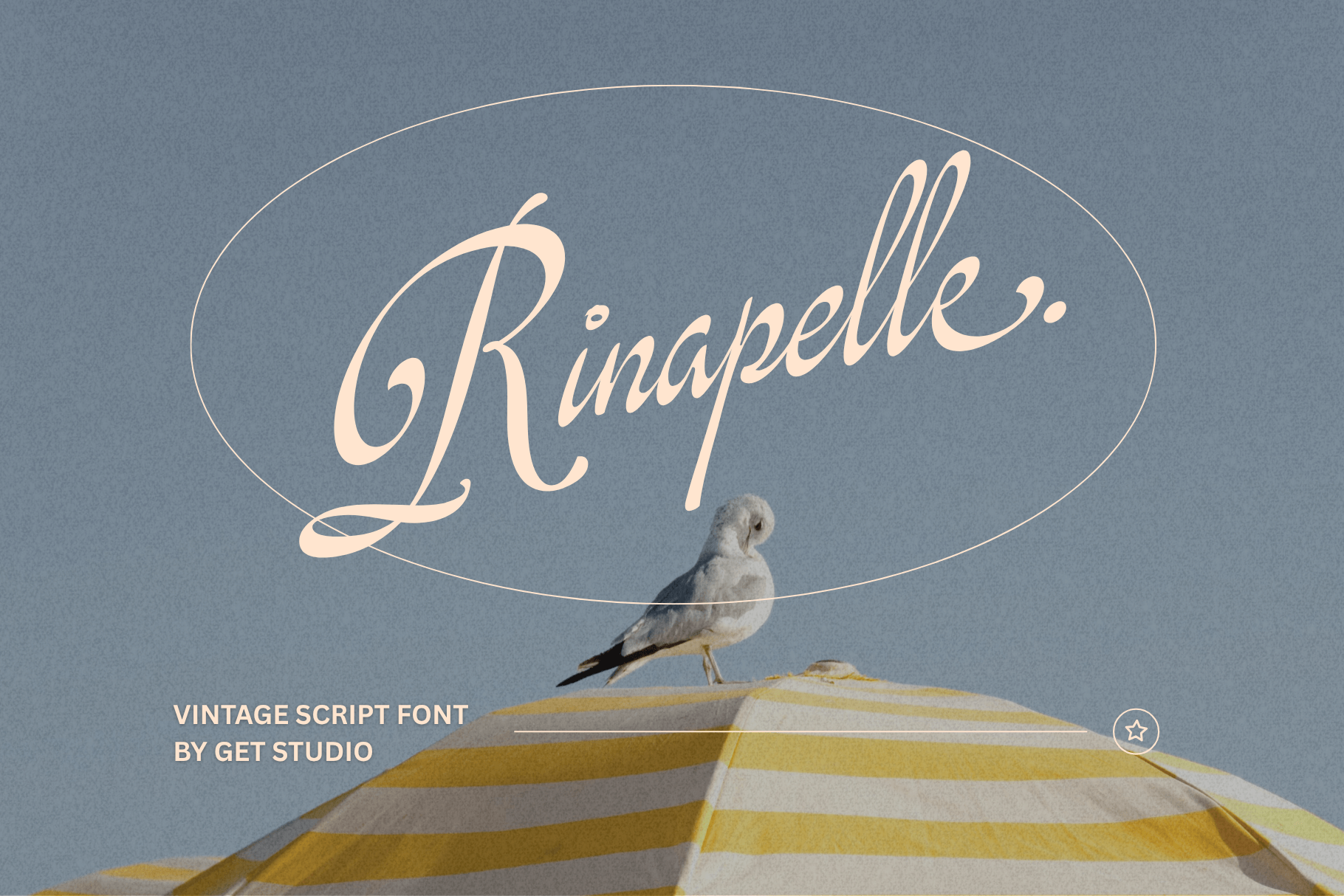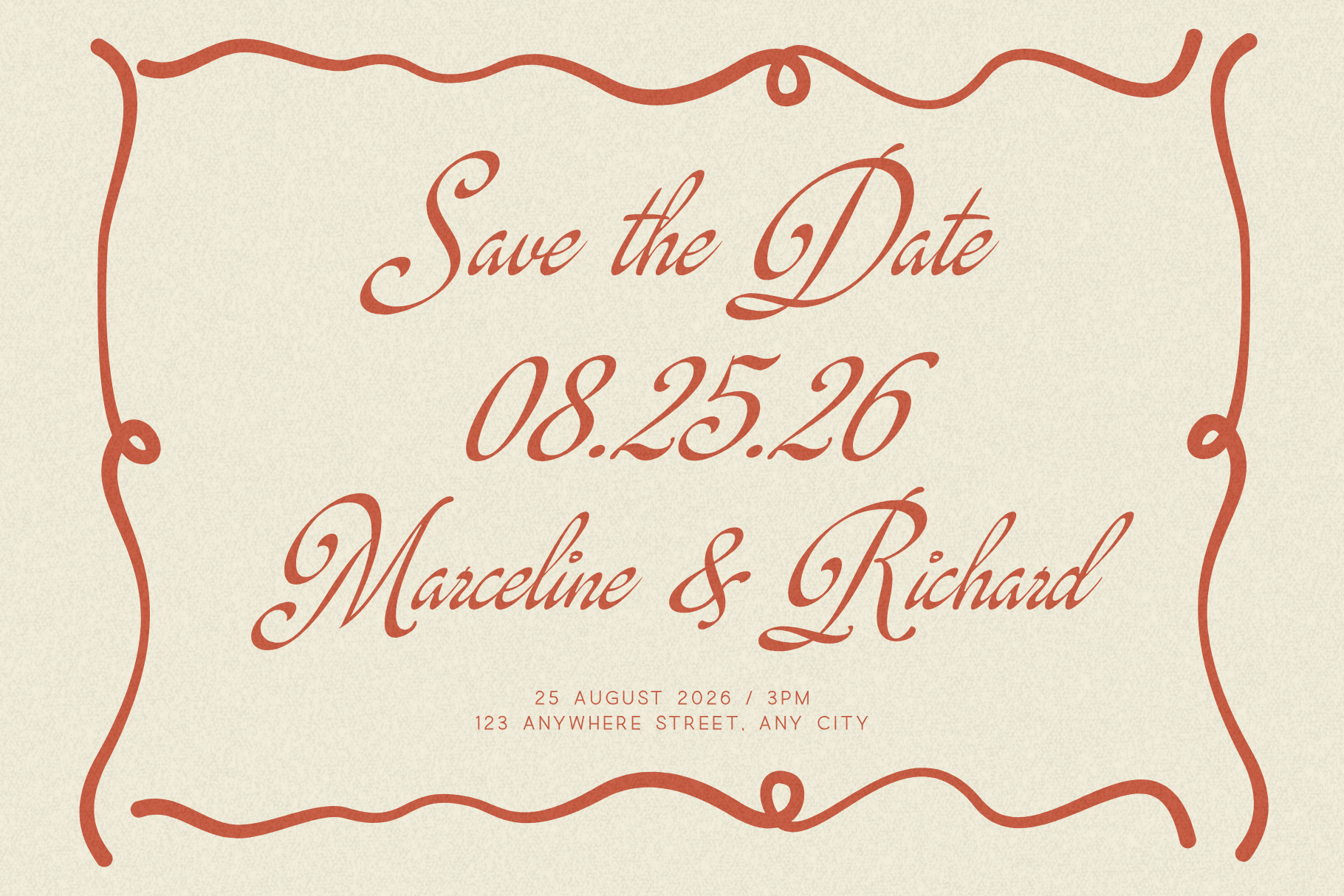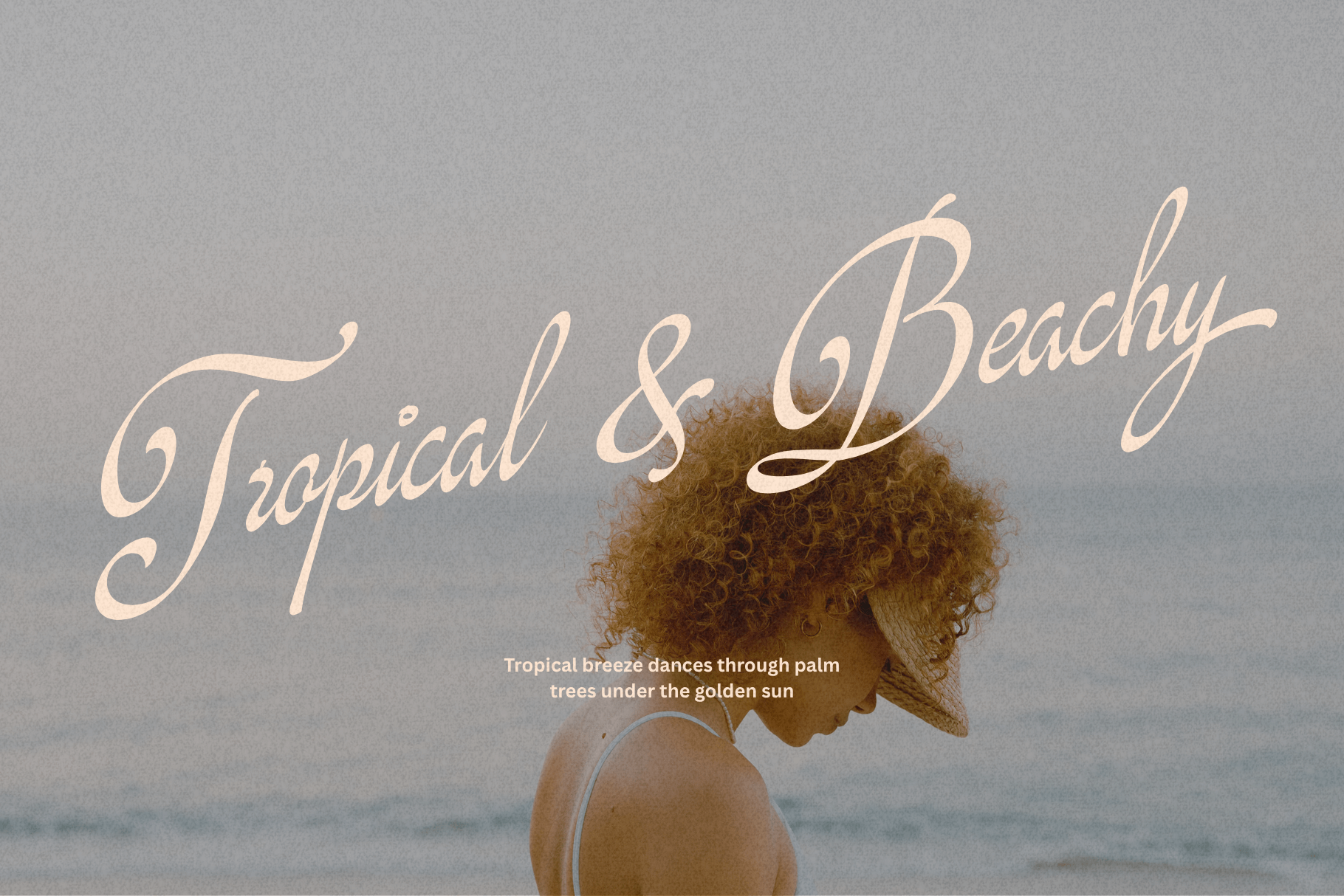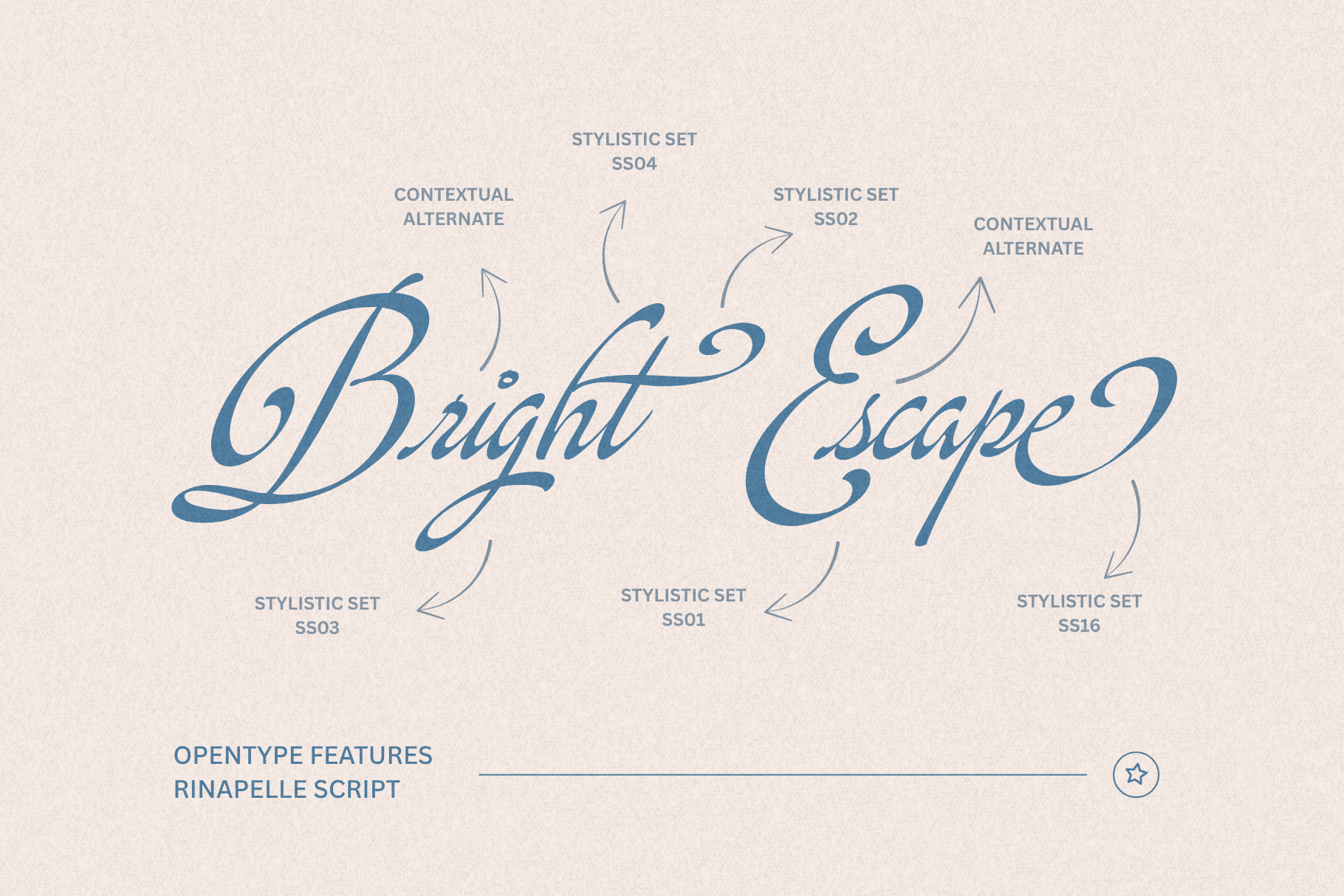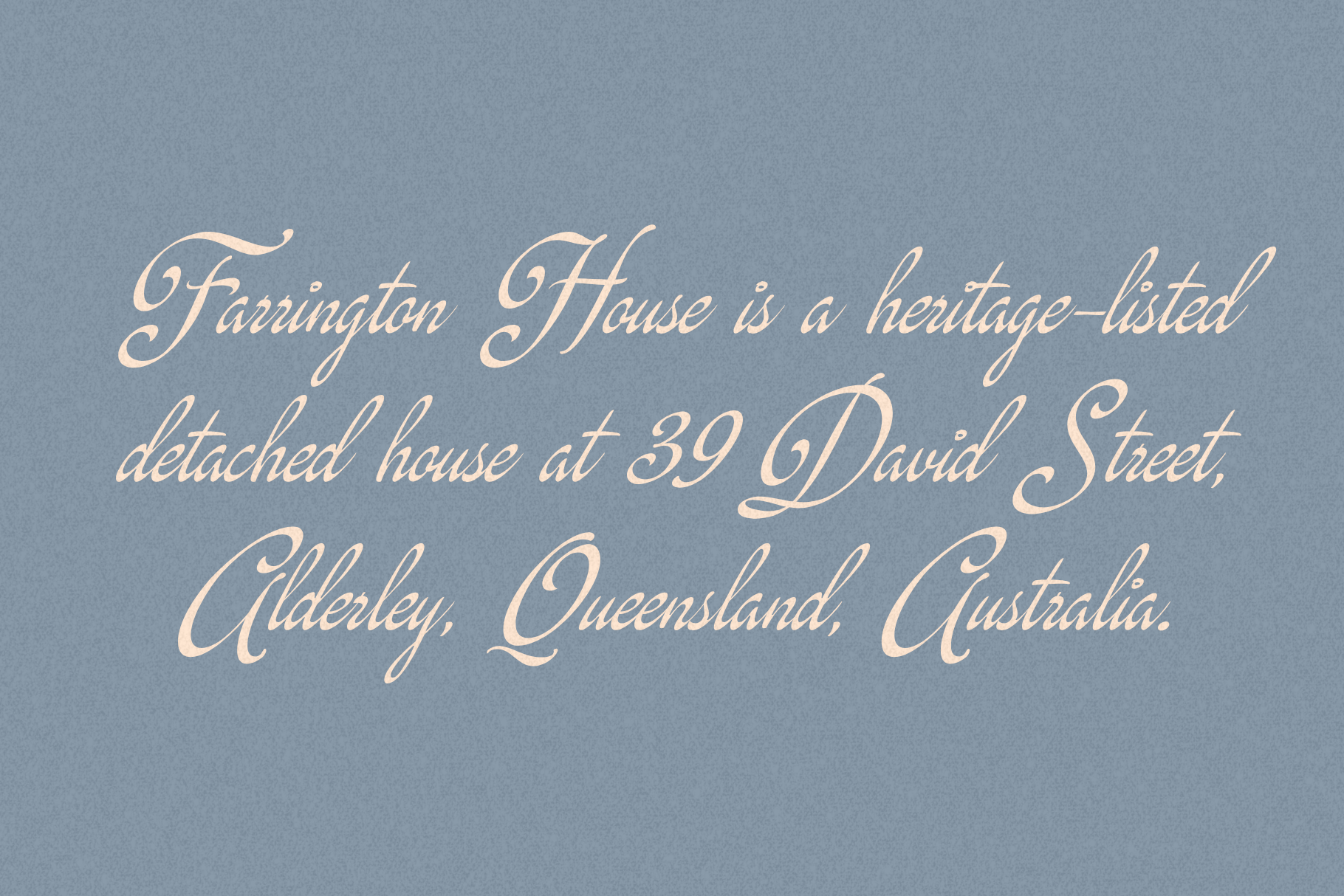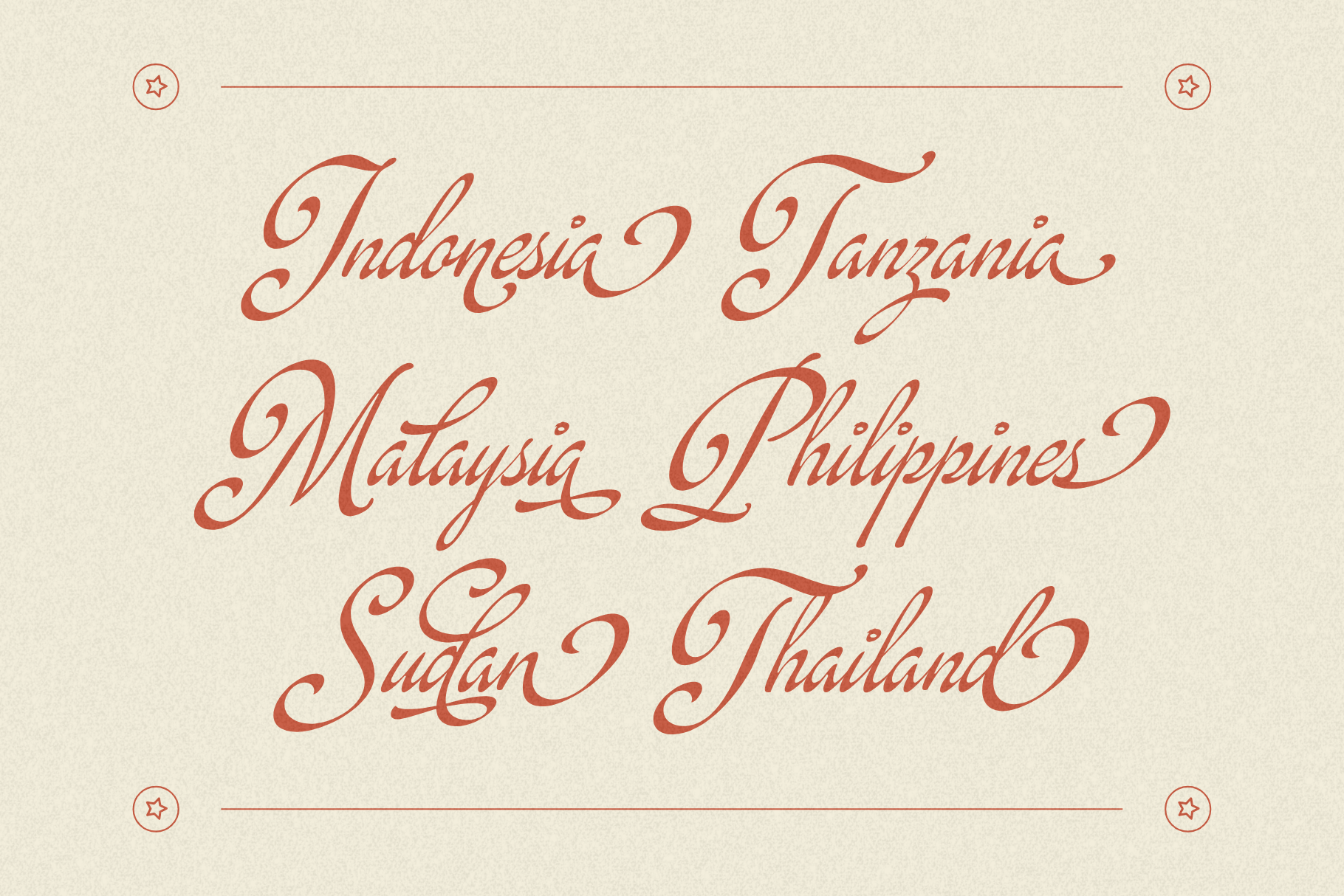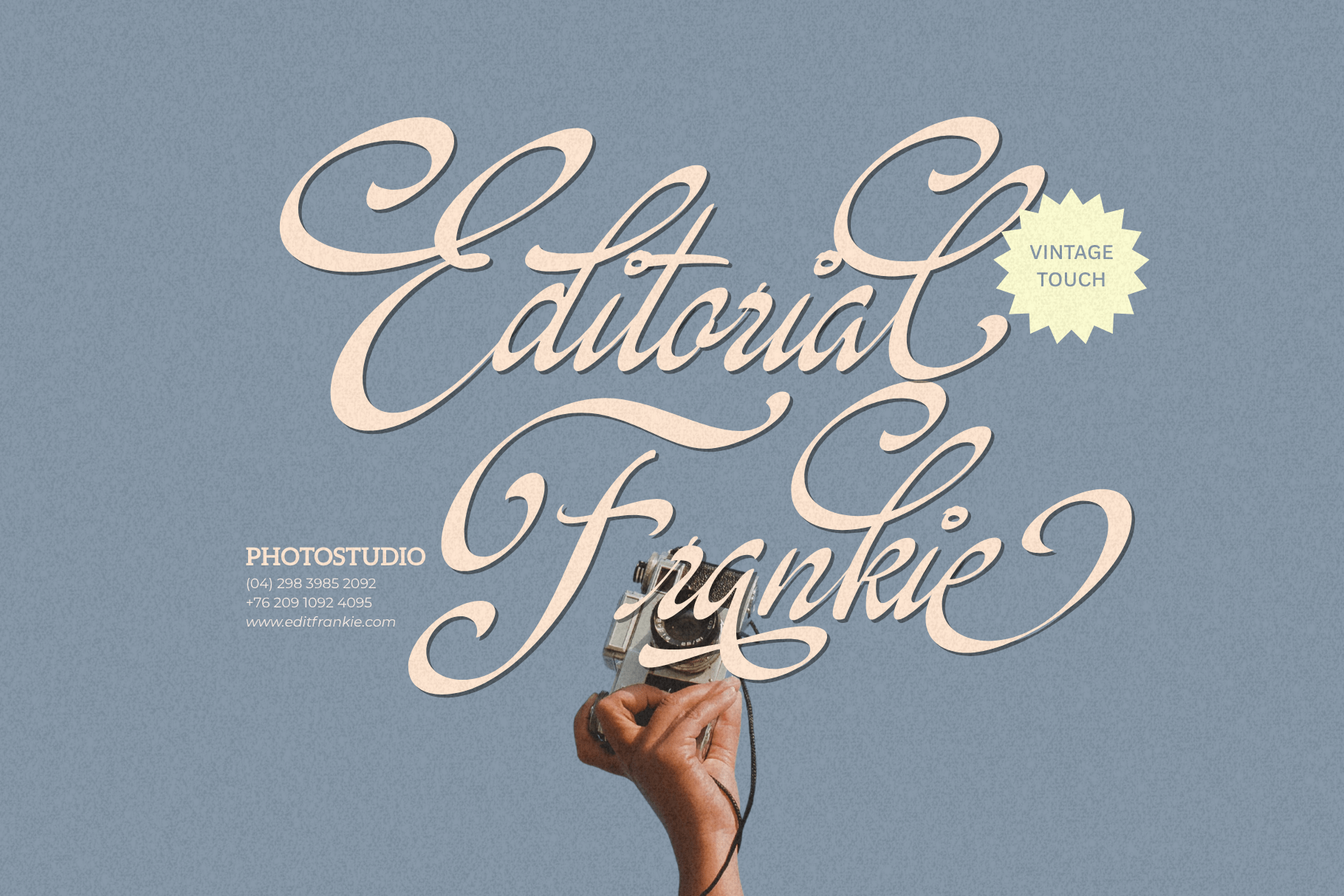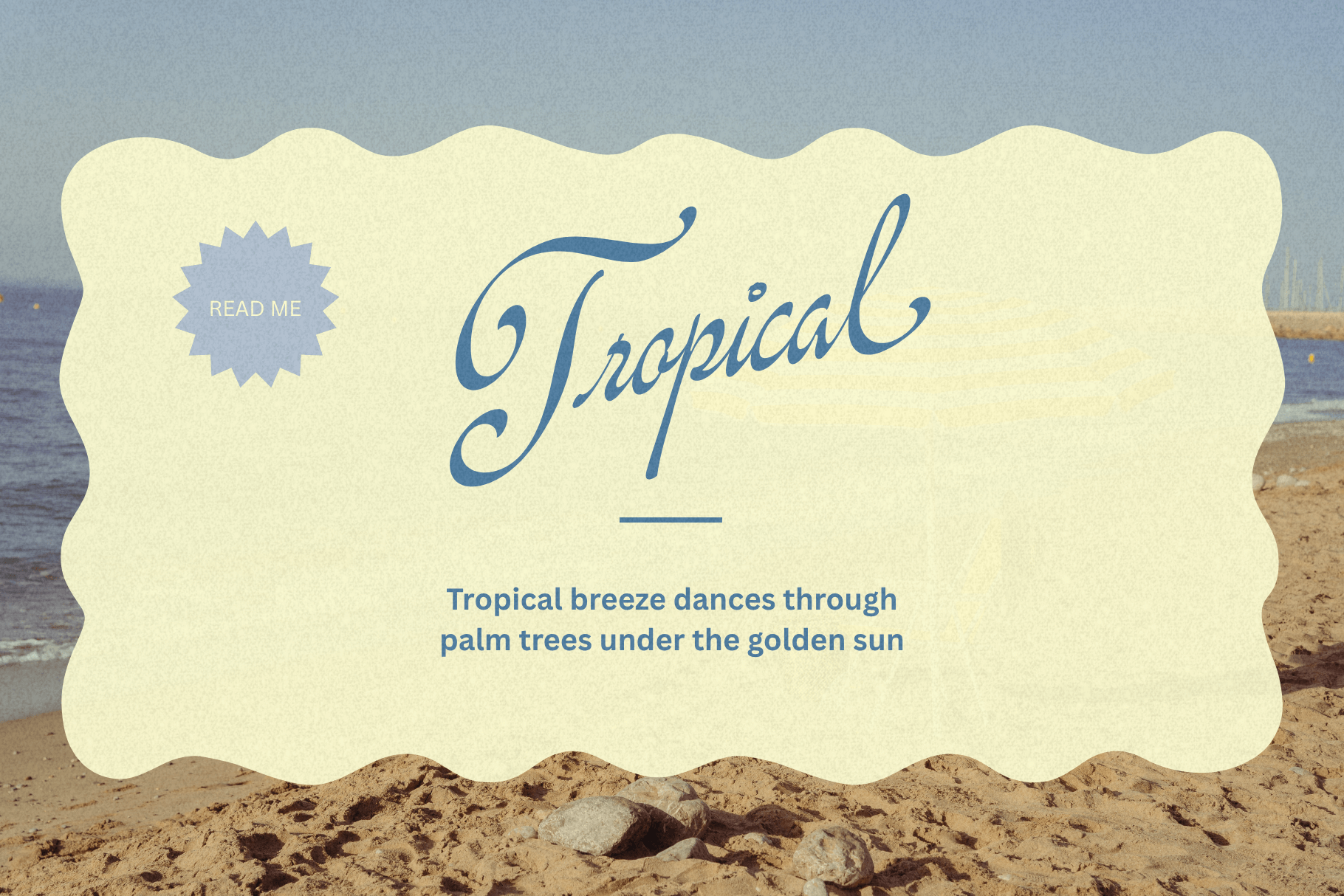
Rinapelle Script created by Get Studio is a charming tribute to timeless elegance — a vintage script font that dances with grace and sophistication. Crafted with silky-smooth curves and flowing connections, Rinapelle brings the allure of handwritten nostalgia into the modern world.
Whether you’re designing for luxury branding, wedding stationery, or seaside cafes, Rinapelle tells a story in every stroke. With an abundance of thoughtfully designed alternates and ligatures, you can effortlessly create unique compositions that feel both personal and polished.
From classic monograms to poetic quotes, Rinapelle whispers romance, wanderlust, and a touch of sun-soaked nostalgia. Let your words float on the breeze — elegant, gentle, and unforgettable.